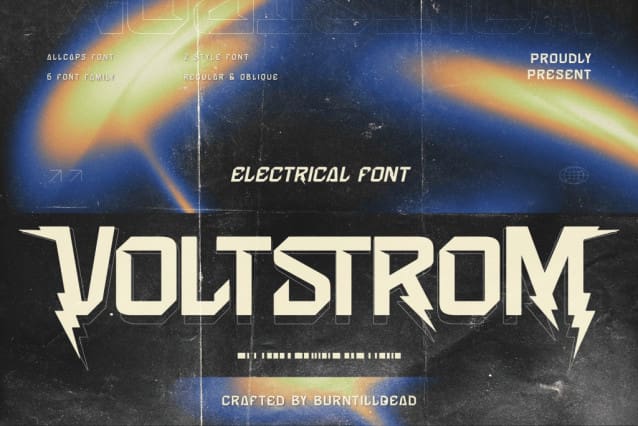
Voltsrom Font
Voltsrom Font, An electric font with 6 font families and 2 styles, regular and oblique. Voltstrom is characterized by modern and advanced energy derived from the electricity of lightning. Voltstrom is perfect for any type of design project that needs an electrical or technological theme.